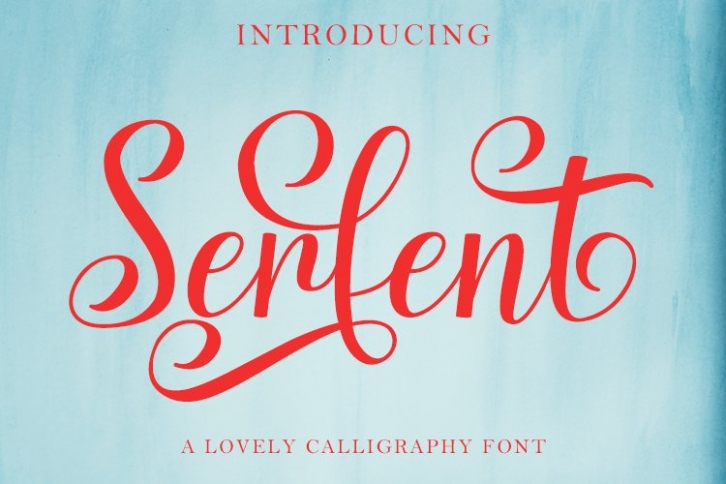
Serfent Script is a great font that was designed by YonTypeStudioCo. Imagine the amount of combinations you can create using this font! The archive is 21.89 MB and it was released on February 1, 2021. Serfent Script looks beautiful on wedding invitations, greeting cards, logos, posters, labels, t-shirt designs, logos, business cards and is perfect for use in ink or watercolor works, fashion, magazines, packaging and food menus, children's books and more!